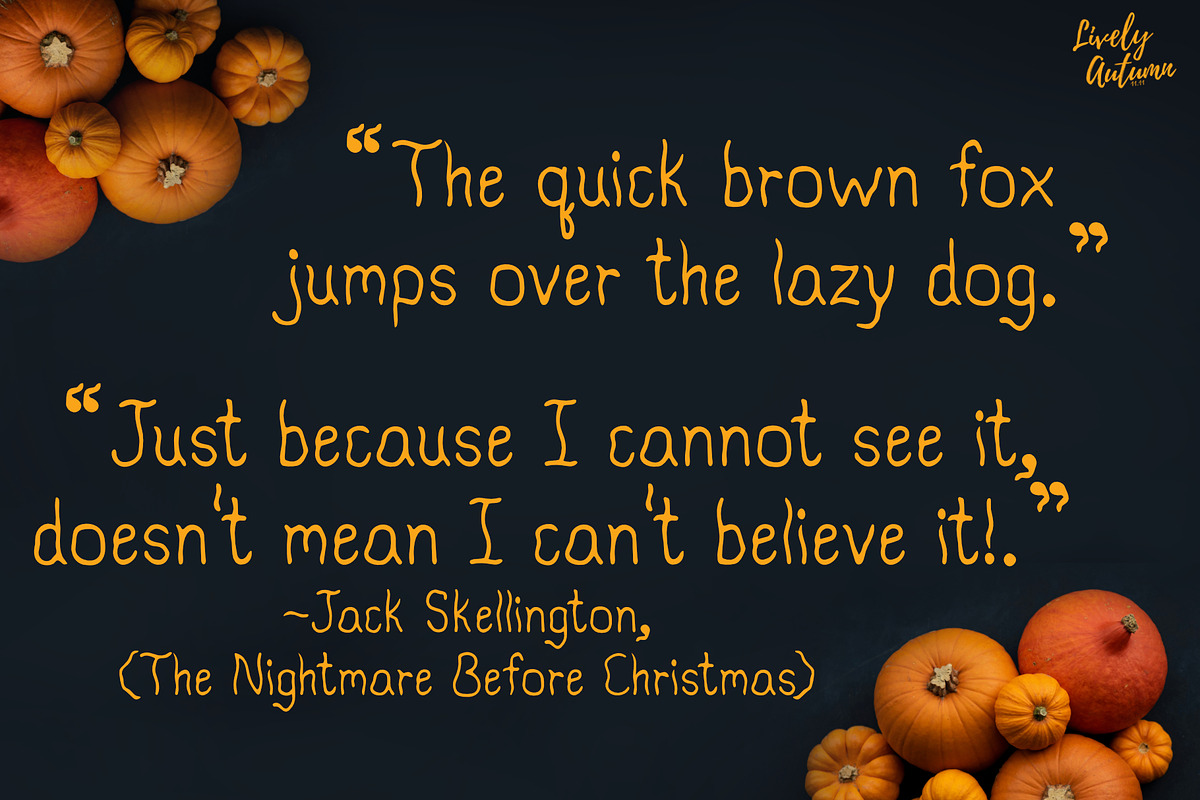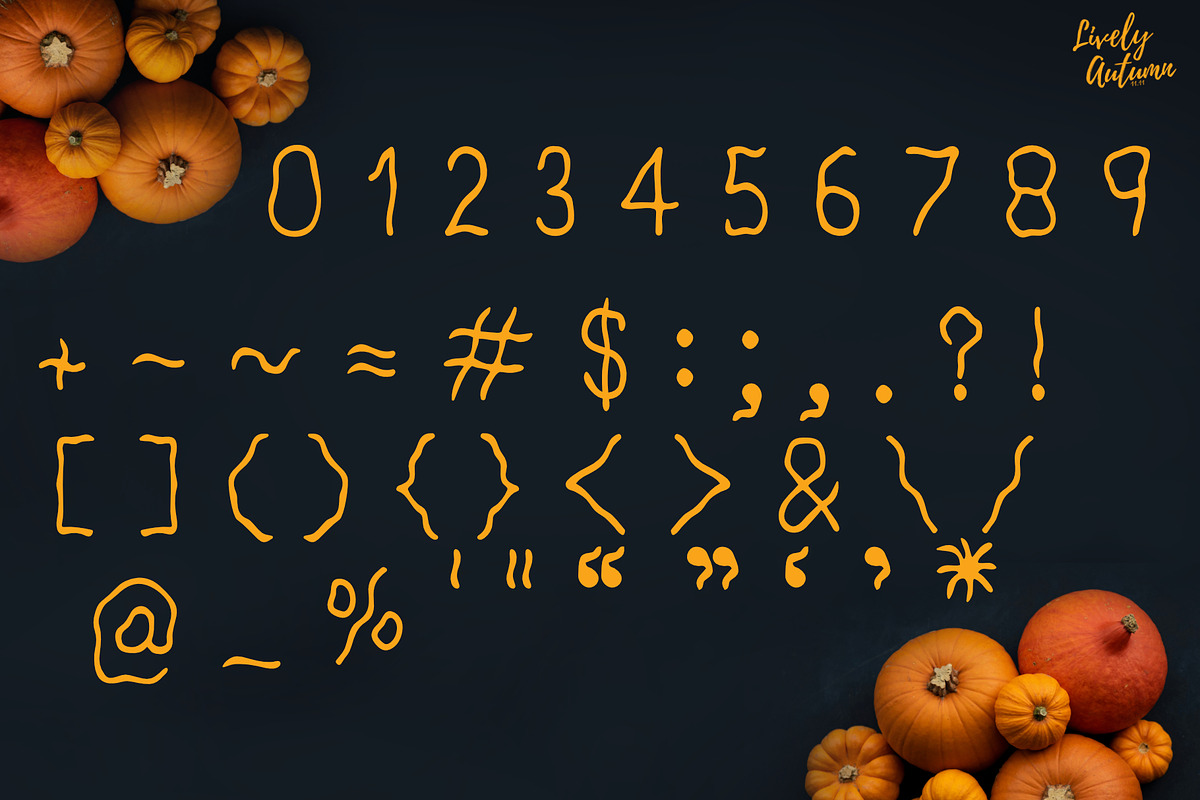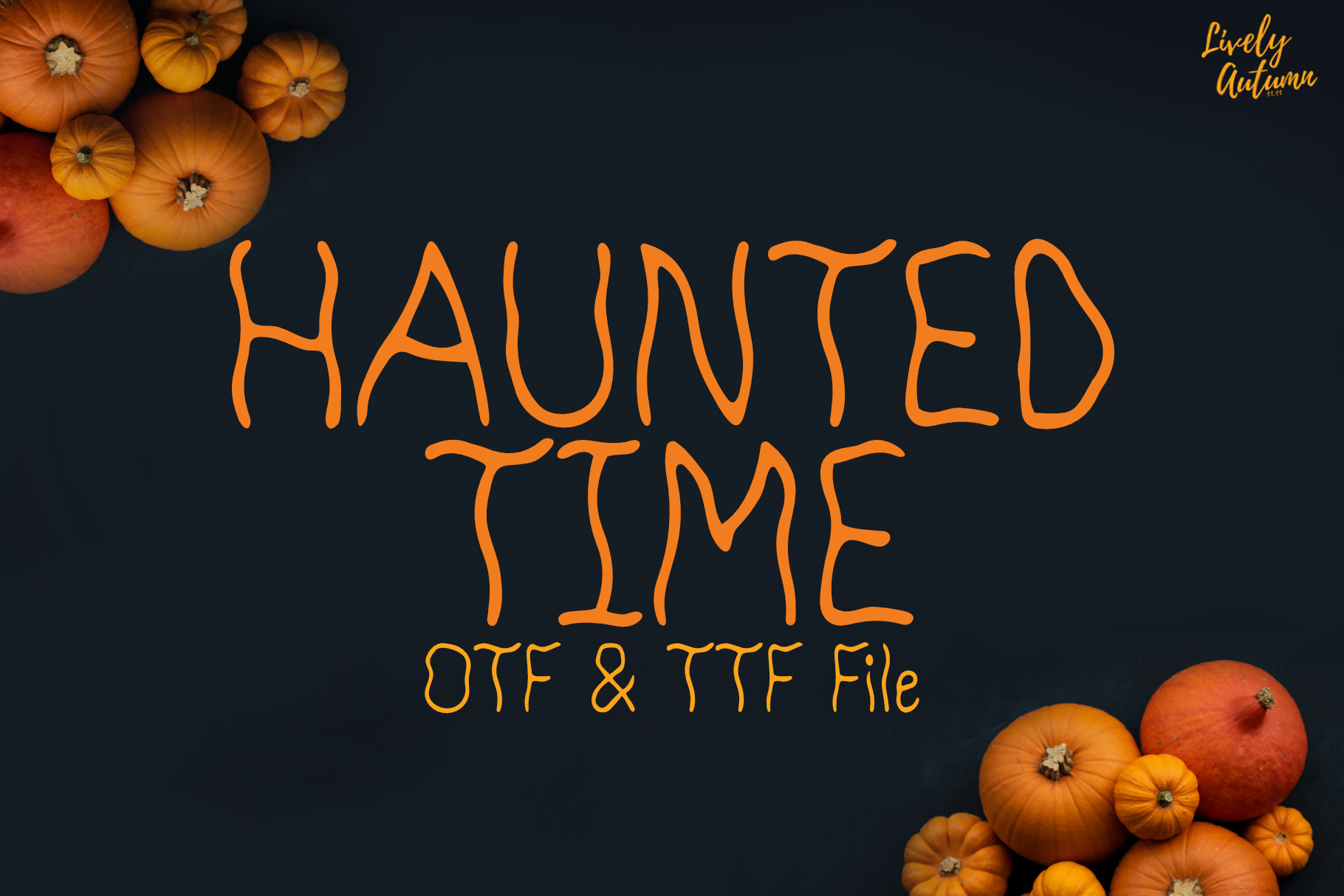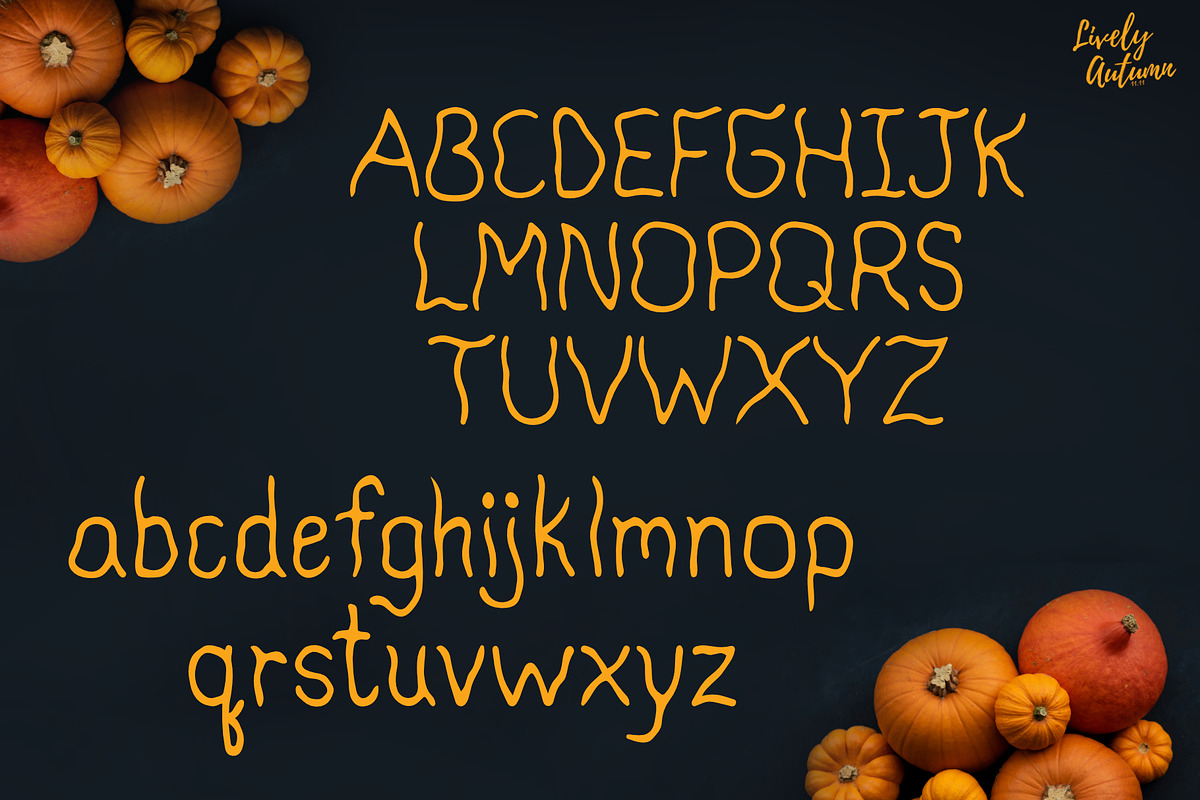
Haunted Time |Shaky handwriting font
Haunted Time Font is a shaky Sans Serif handwritten font. Perfect for your halloween theme project, personal projects, and various projects. From invitations to posters, social media graphics, journals, and much more.
- Font includes: uppercase, lowercase, numbers, and punctuation.